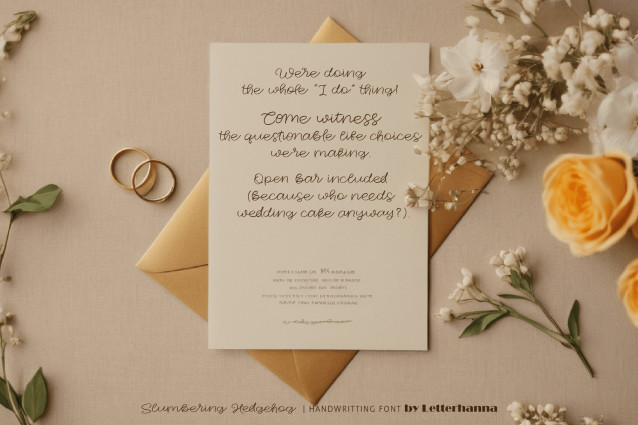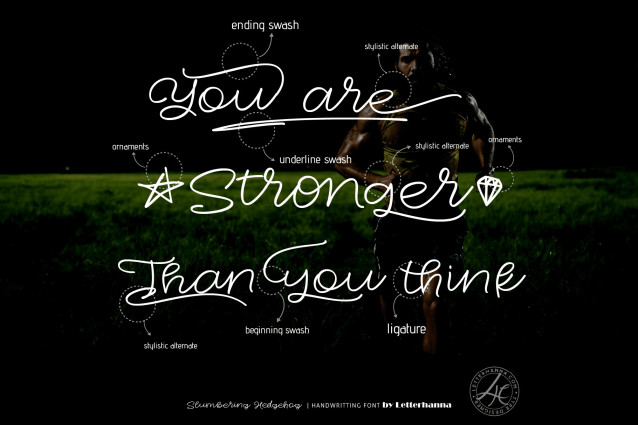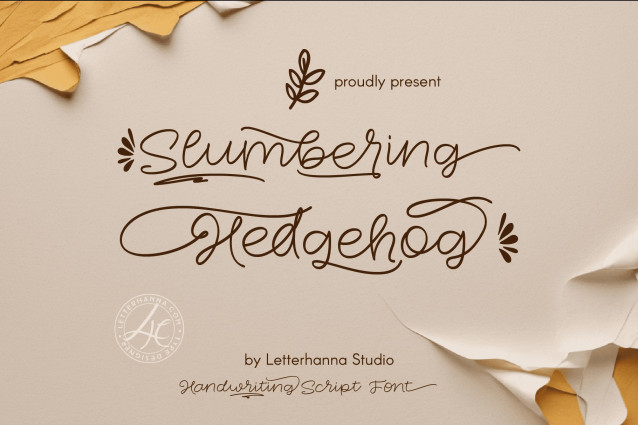
Slumbering Hedgehog Handwriting Font
Slumbering Hedgehog Handwriting Font Gain easy access to all alternate glyphs, swashes, ornaments, and underlines by simply using ligatures. You can try them out yourself in the font preview tool on our website, letterhanna.com.